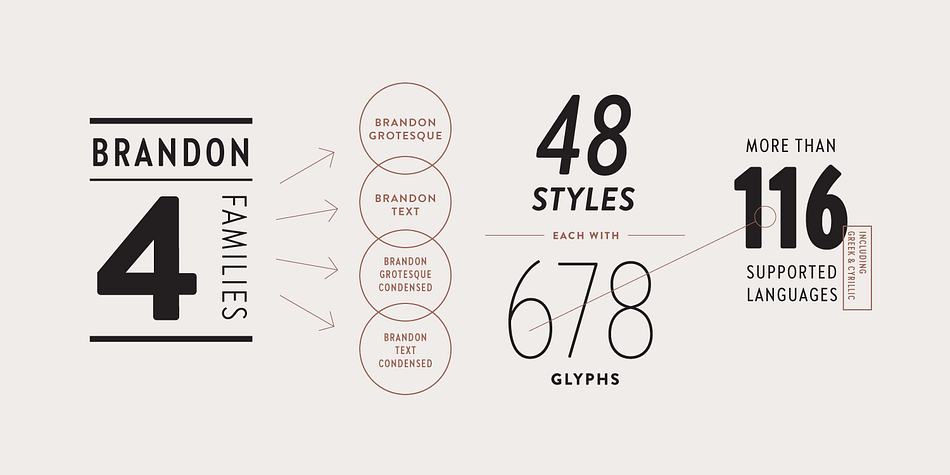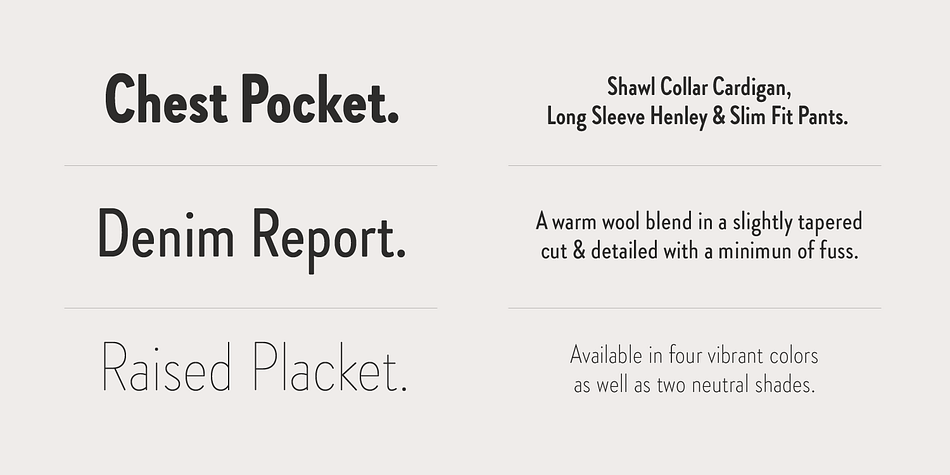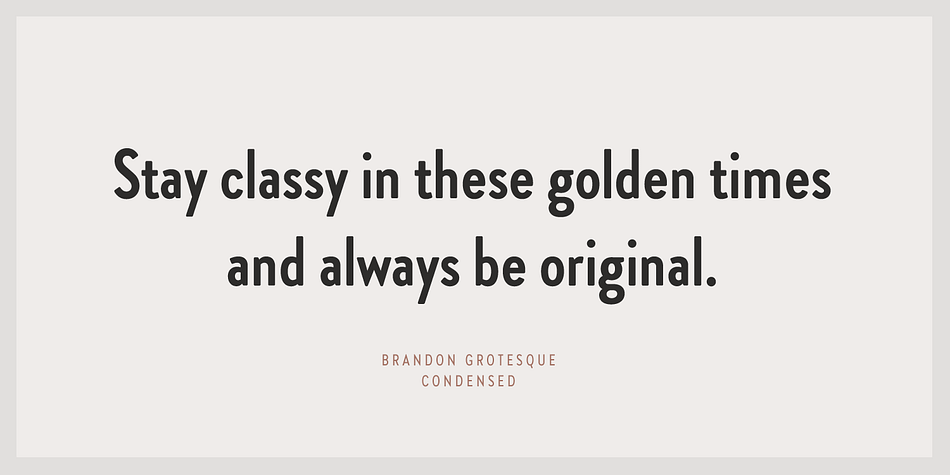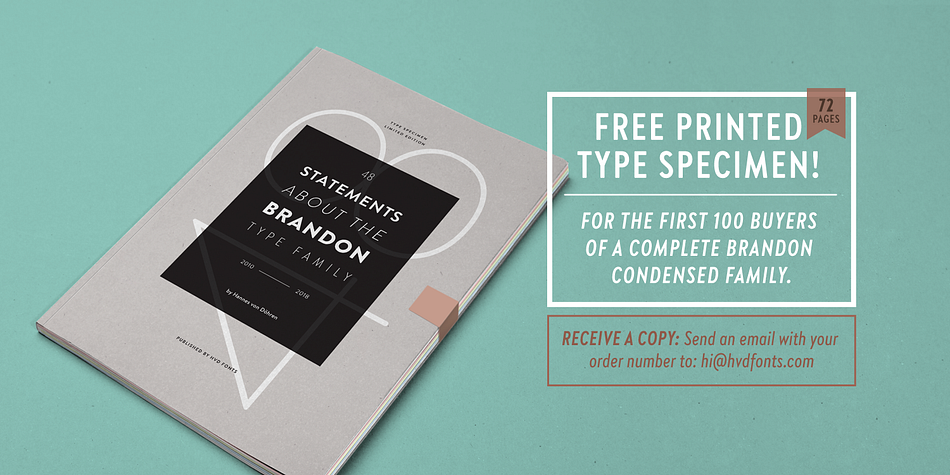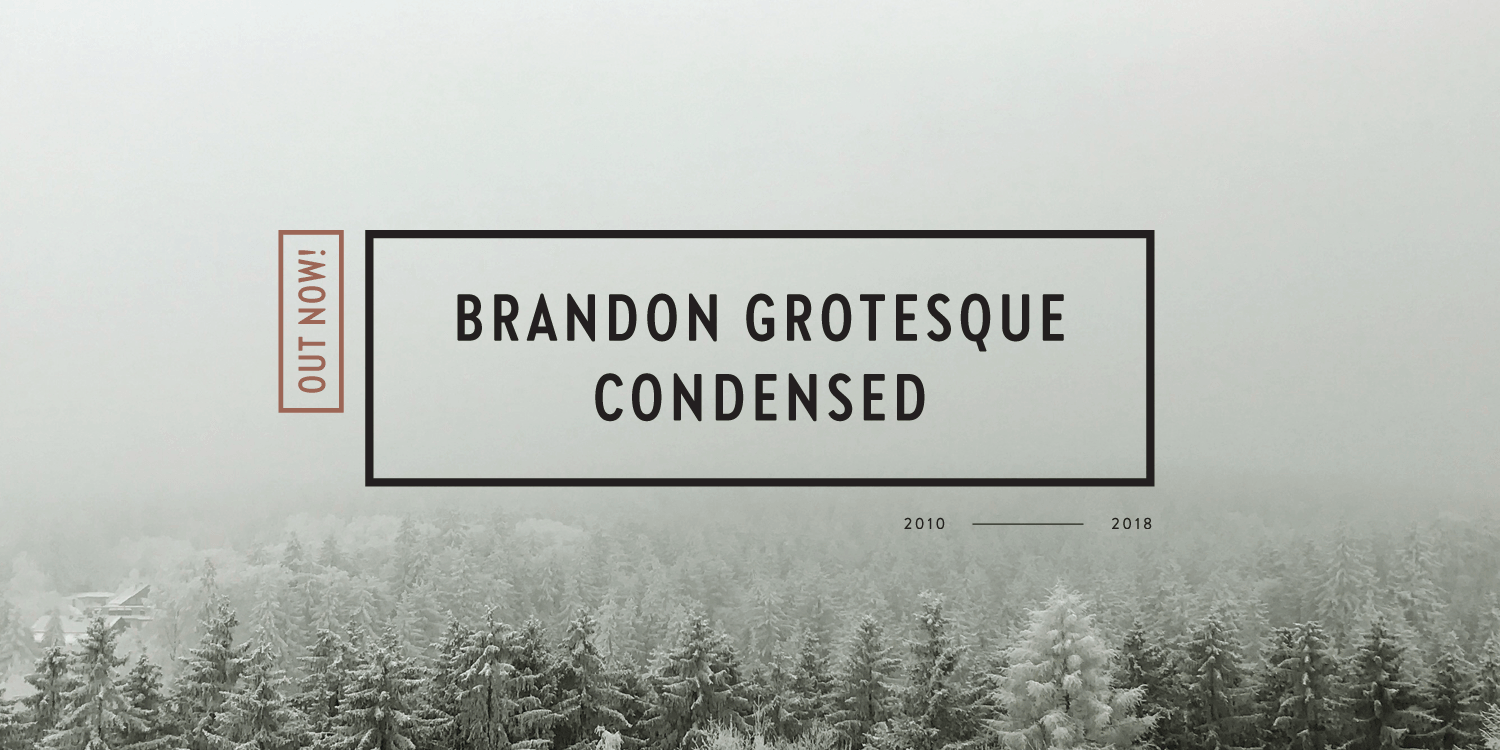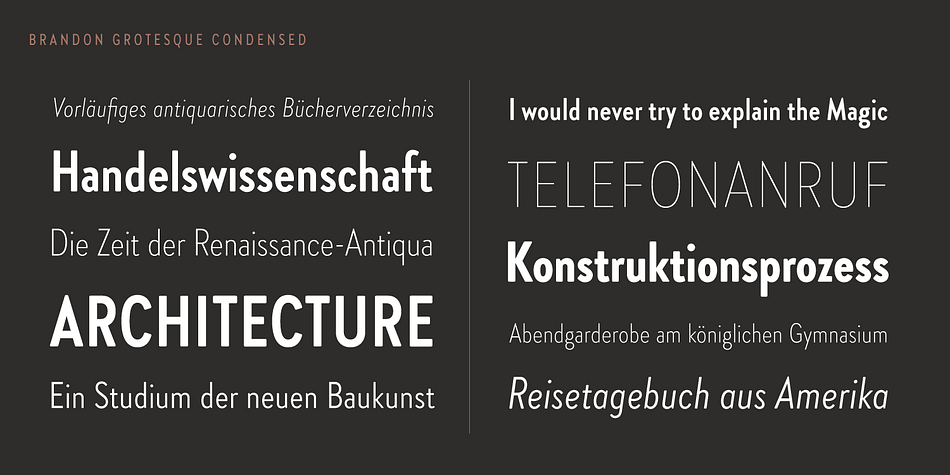
Designed by Hannes von Döhren, Brandon Grotesque Condensed is a sans serif font family. This typeface has twelve styles and was published by HVD Fonts.
Eight years after the initial release of Brandon Grotesque (2010), the typeface has grown into a font family of 48 styles, including a version for small sizes and a space saving condensed version. This type family was completely drawn from scratch with the look and feel of the original normal-width version. Today, Brandon supports at least 116 languages, from Latin based languages to Greek and Cyrillic.